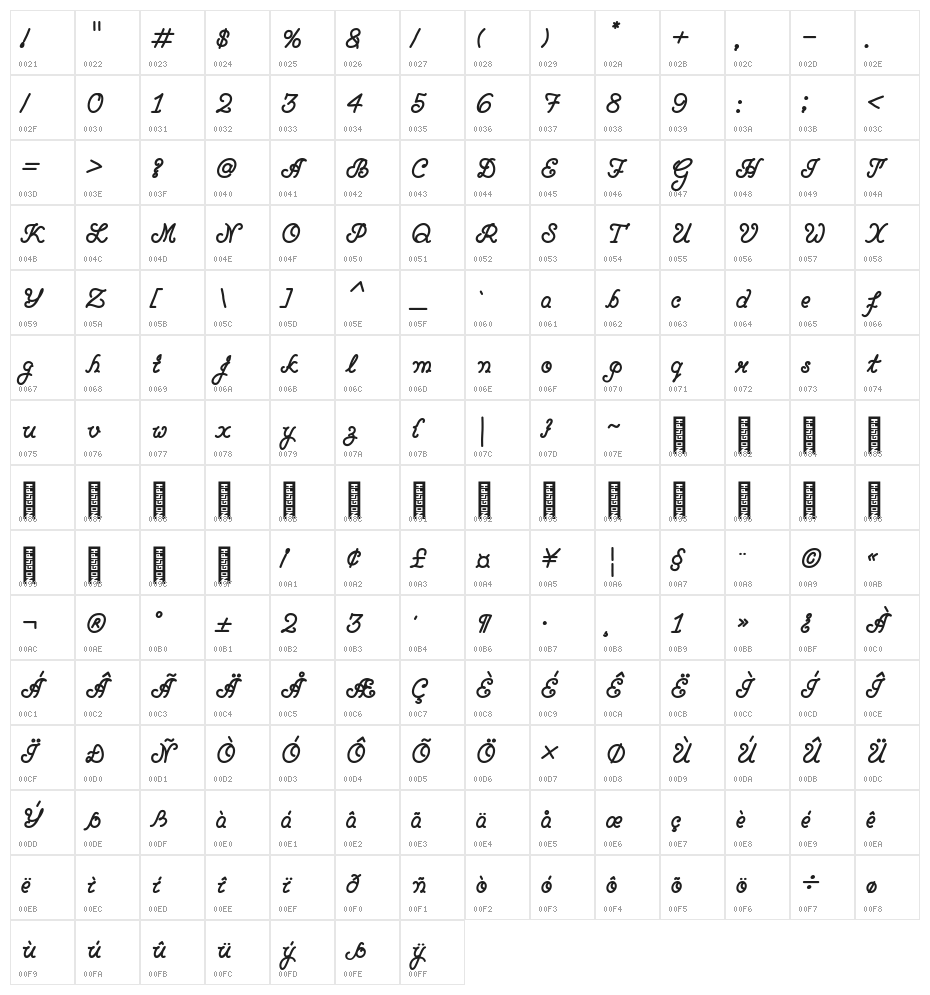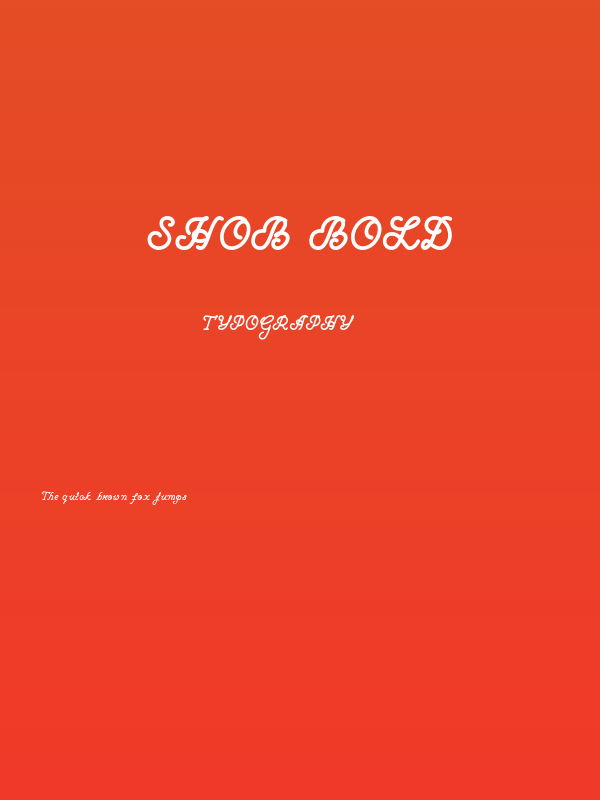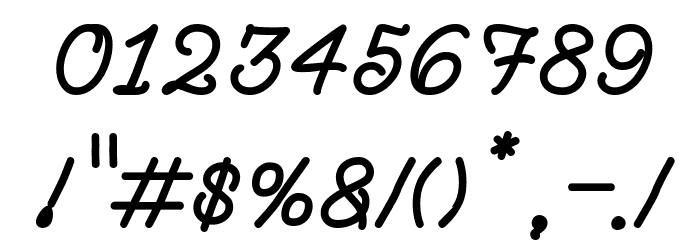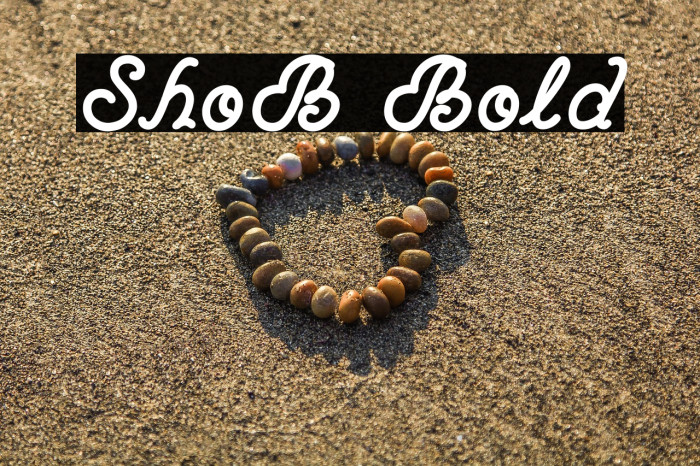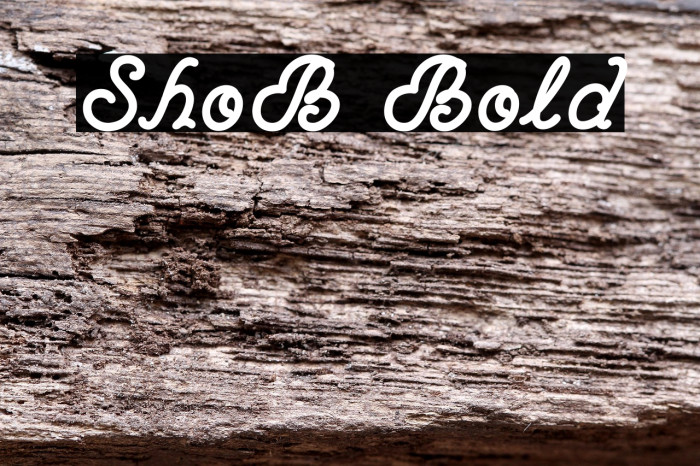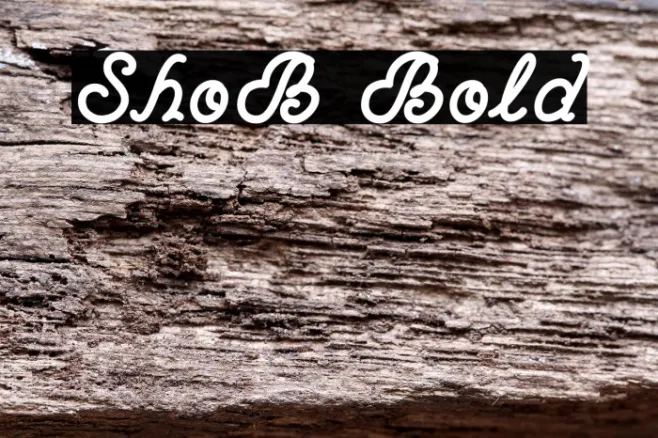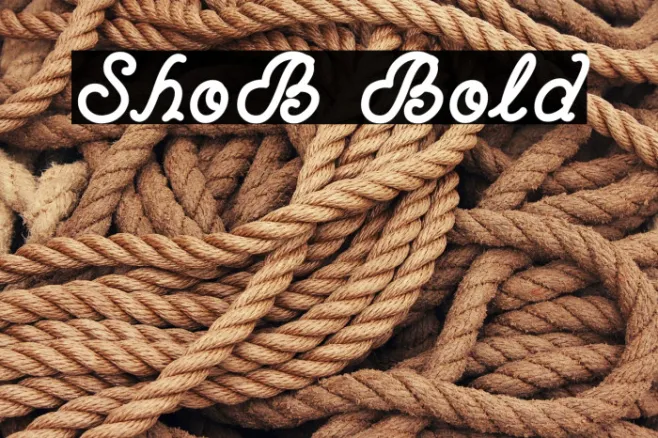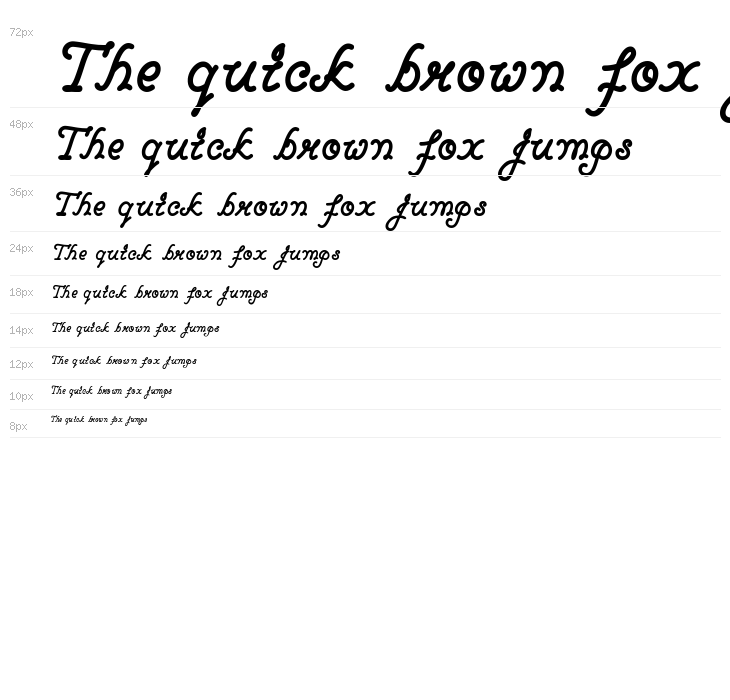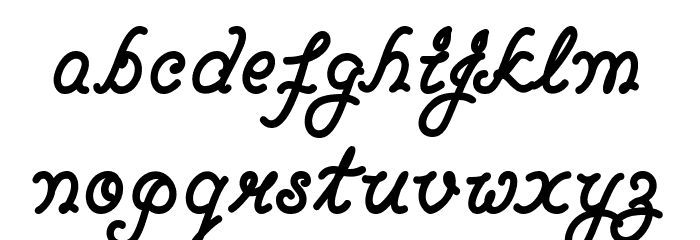
ShoB Bold Font
ShoB Bold Description
This font features a bold, cursive style with a flowing, handwritten appearance. Each character is intricately designed with smooth curves and elegant loops, giving it a sophisticated and artistic feel. The uppercase letters are slightly larger and more pronounced, while the lowercase letters maintain a consistent flow, enhancing readability. Numbers and special characters are crafted to match the overall aesthetic, ensuring a cohesive look across all text. This font's design is both decorative and functional, making it suitable for a variety of creative applications.